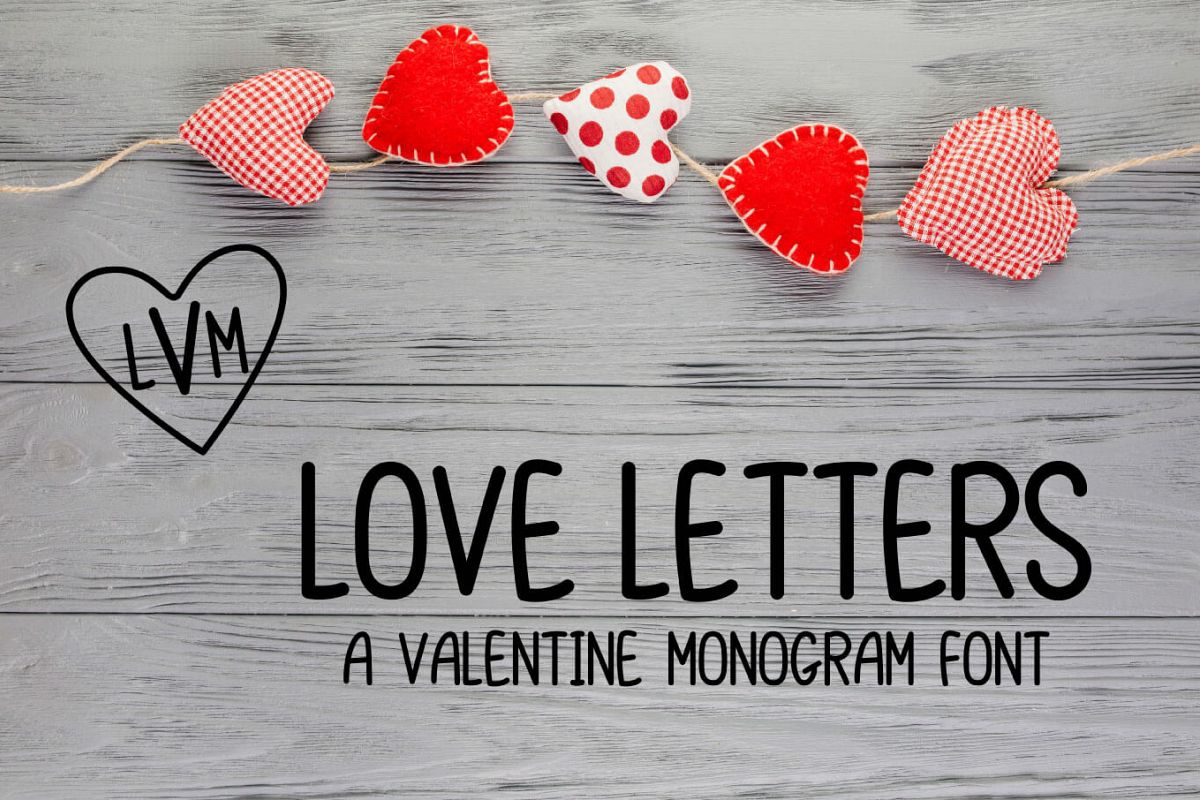
Love Letters Monogram font can help you create personalized shirts, signs, tags, and more for Valentine's Day and special occasions.
- Uppercase: A-Z
- Lowercase: A-Z - same as uppercase but smaller to easily create monograms!
- 10 Monogram Frames - Choose a number 0-9 to select a frame!
Normally, monogram order is: First Initial, Last Initial, Middle Initial. With this font, use a lowercase letter, uppercase letter, then lowercase letter, aAa, this will create your perfect monogram! Now all you need to do is browse the monogram frames provided by choosing numbers 0-9 and size accordingly. You can also use any frames that you already have. Be creative & enjoy!